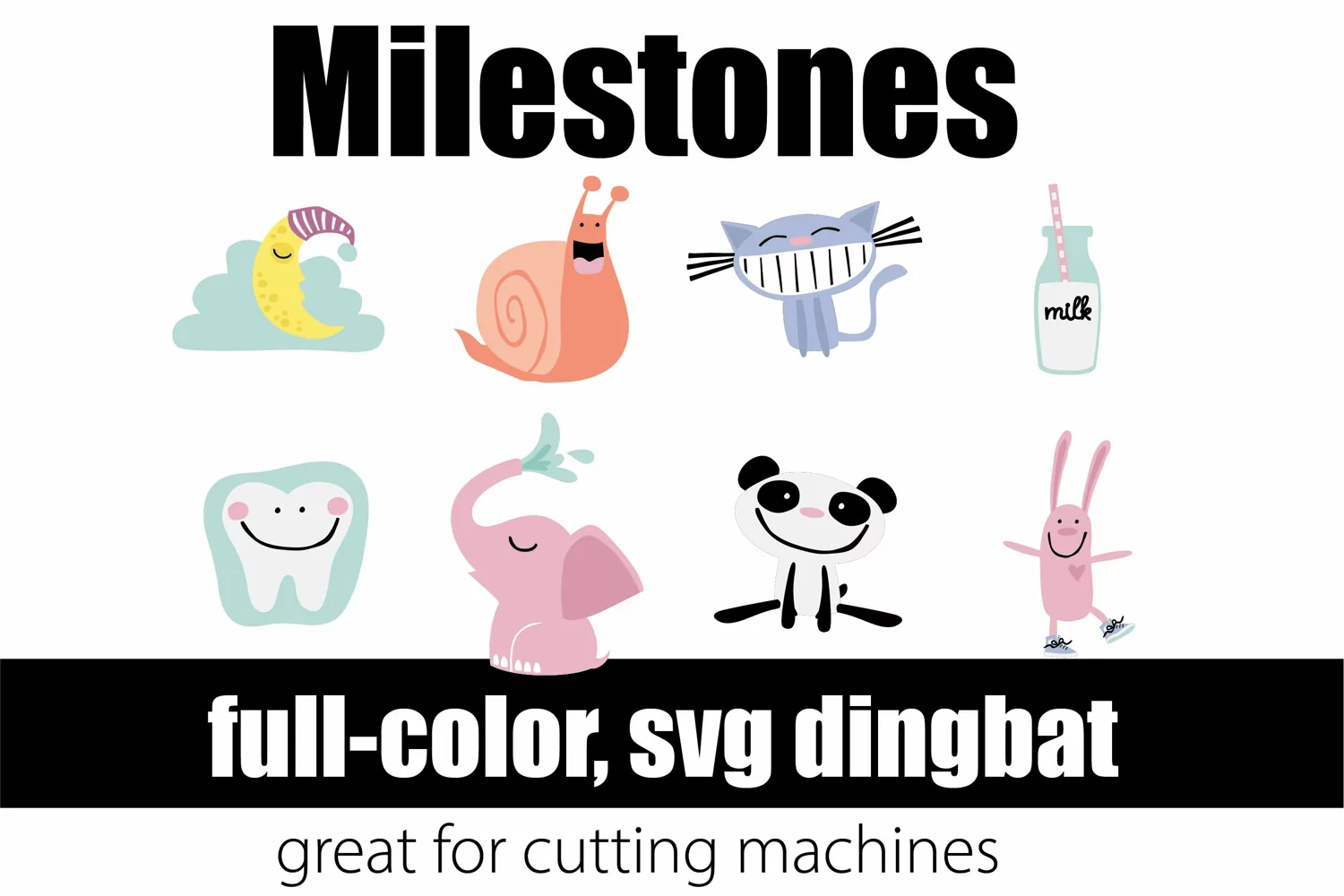
Milestones
This full-color dingbat font features cute animals representing major milestones throughout the year. The second set, Growing Up matches with major milestones of the school year.